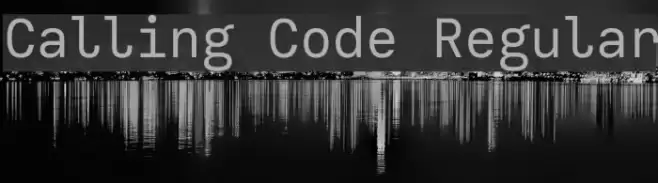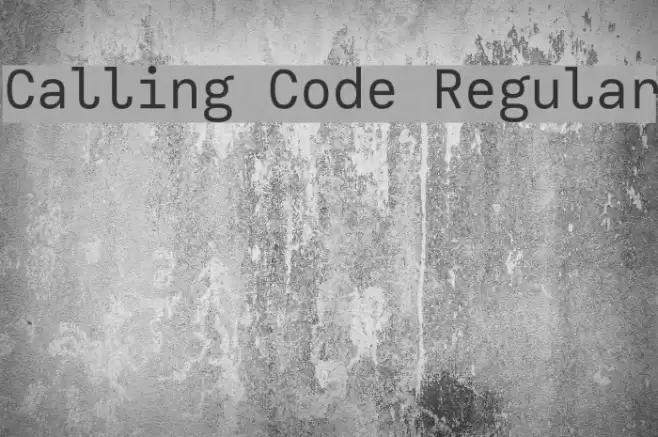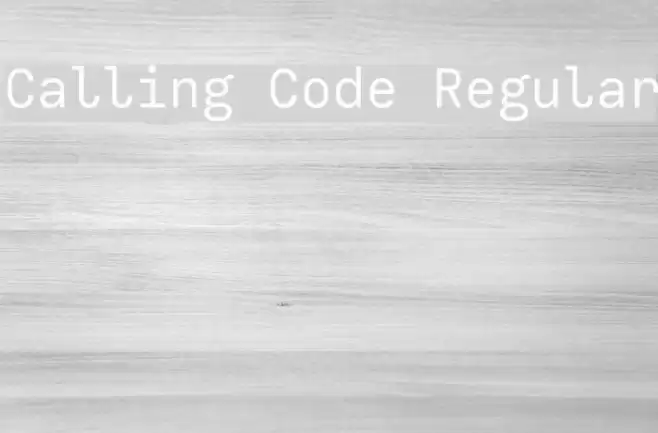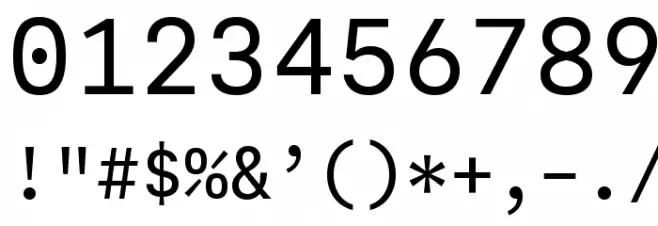
Calling Code Regular Font
Calling Code Regular Description
This typeface features a clean and modern sans-serif design, characterized by its straightforward and geometric letterforms. The characters are evenly spaced, providing a balanced and harmonious appearance. The uppercase letters are bold and assertive, while the lowercase letters maintain a consistent height, enhancing readability. The numerals are clear and distinct, making them suitable for both digital and print applications. Special characters are well-integrated, maintaining the overall aesthetic of the font. Its simplicity and clarity make it versatile for various design needs.
A modern, geometric sans-serif font with balanced spacing and clear readability from Basic fonts.
- Proposed Projects: Ideal for tech branding, user interfaces, digital content, and minimalist design projects.
- Use Case: Headlines, Body text, Logos